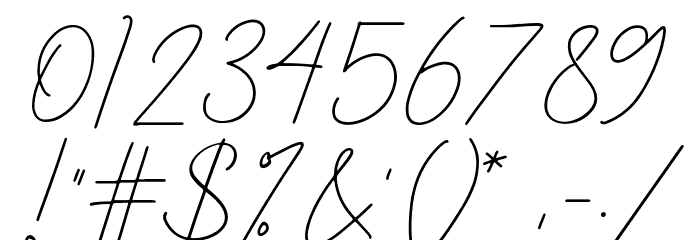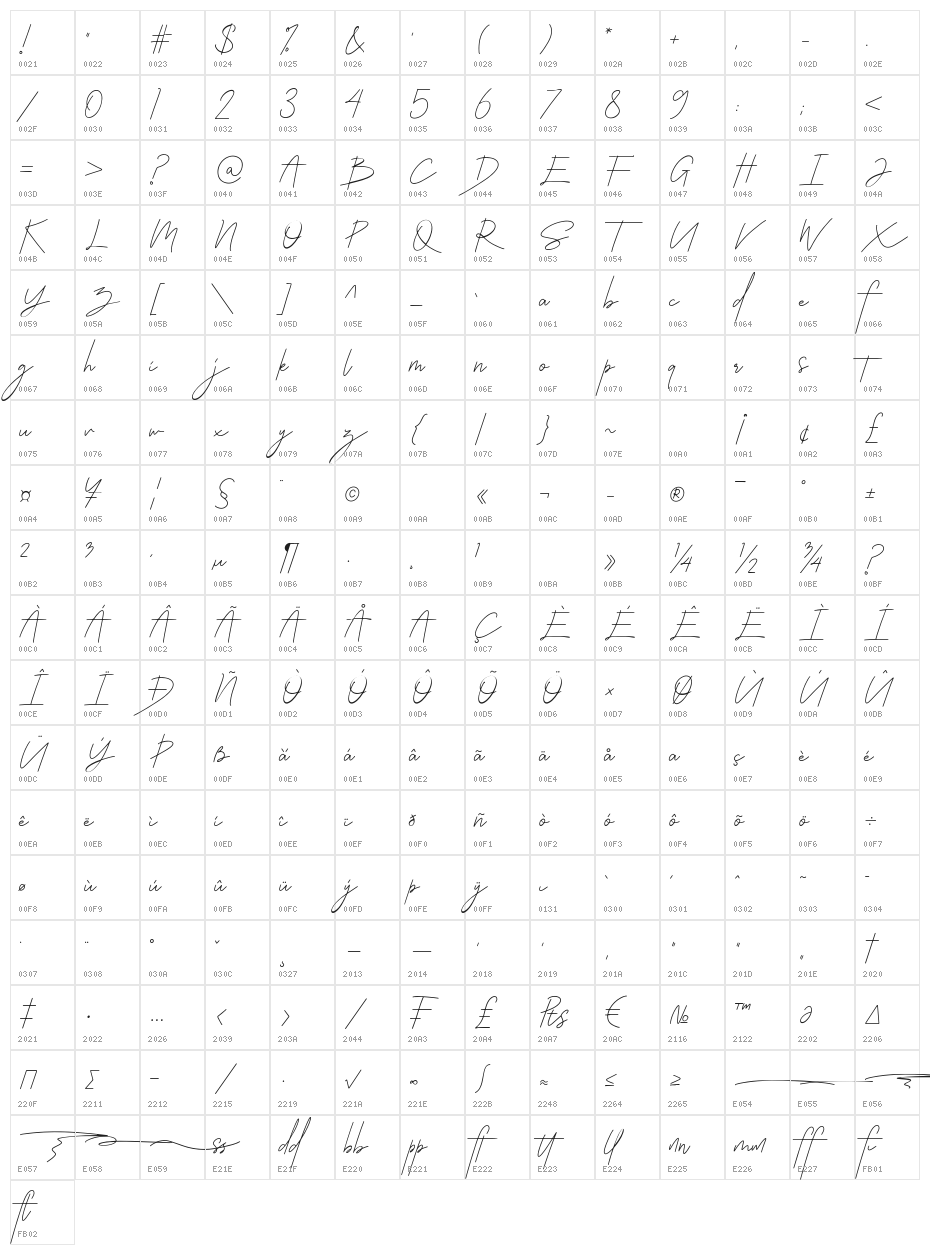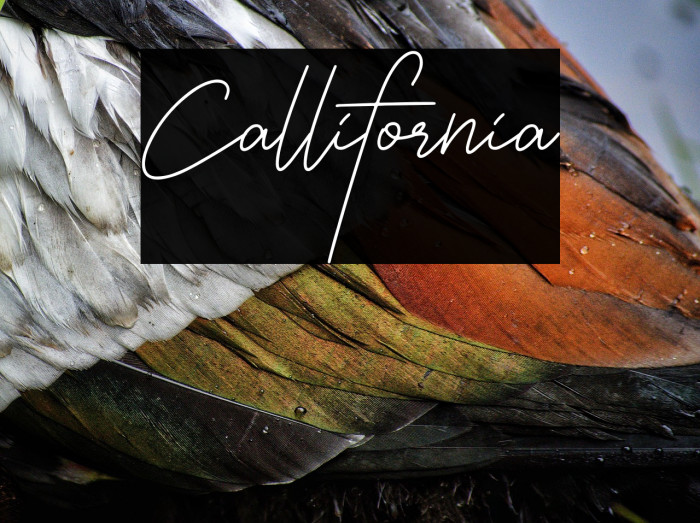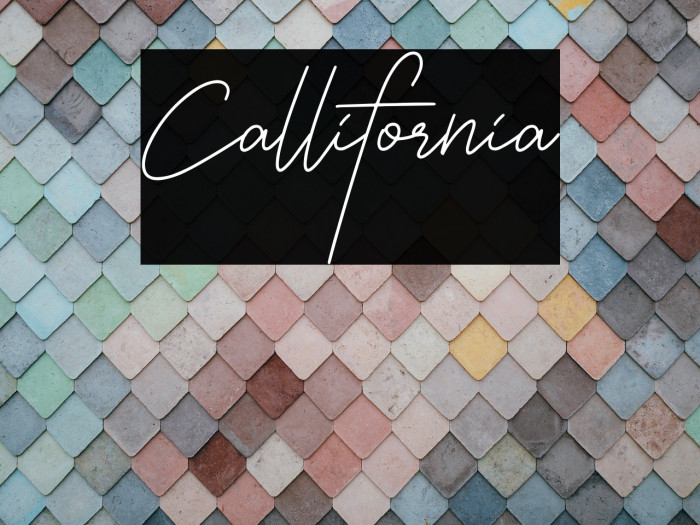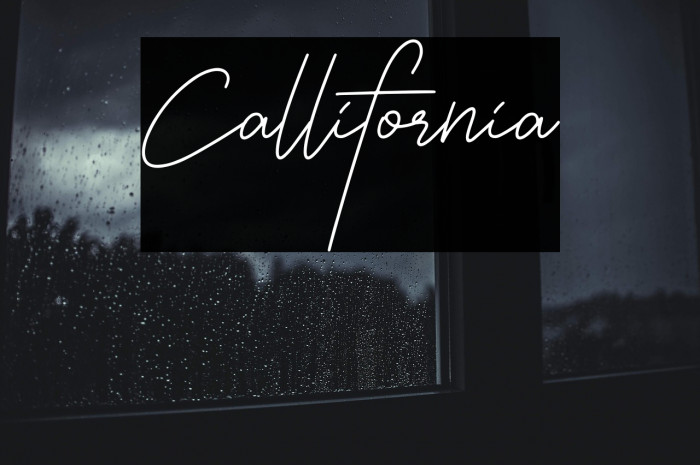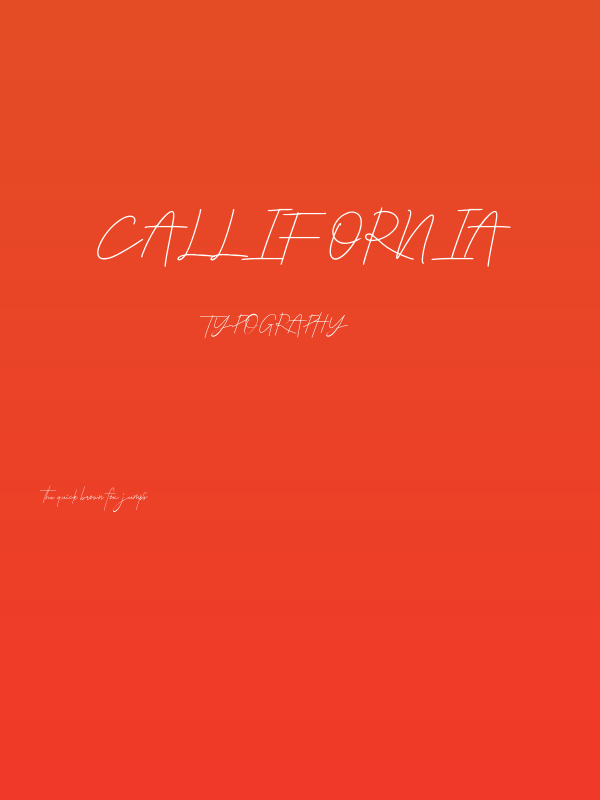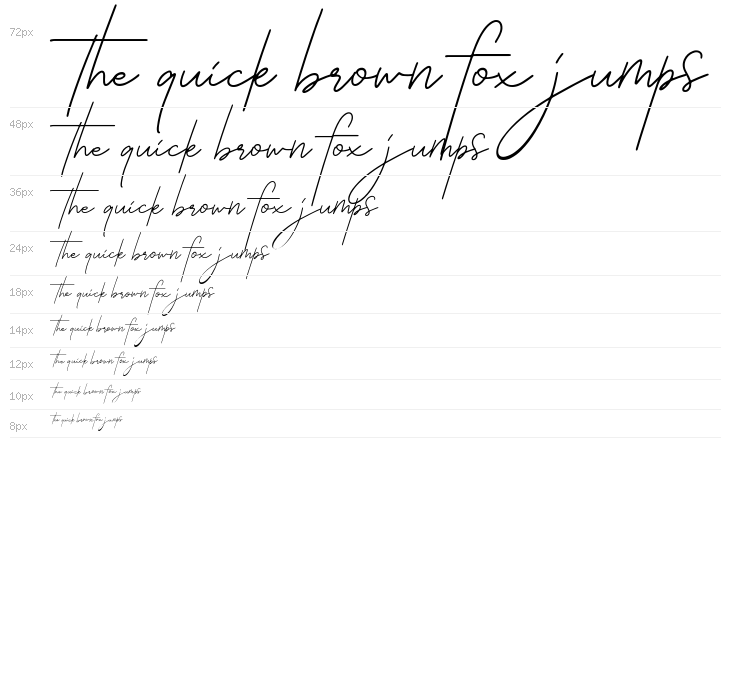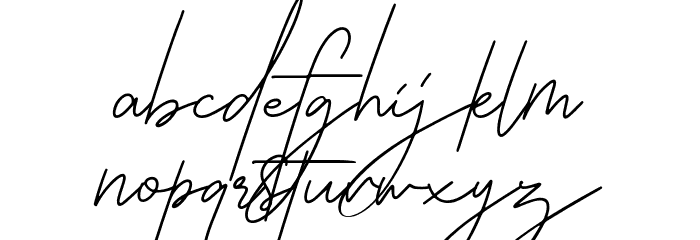
Callifornia Font
Callifornia Description
This font exudes a casual yet elegant handwritten style, characterized by its flowing, cursive script. The letters are connected with smooth, sweeping strokes that give it a natural and personal touch. The uppercase letters maintain a consistent height, while the lowercase letters vary slightly, adding to its dynamic appearance. The numerals are clear and legible, maintaining the same fluidity as the alphabet. Special characters are seamlessly integrated, ensuring versatility in various contexts. This font is perfect for projects that require a personal, human touch, such as invitations, greeting cards, or branding materials.
| Overall Style | Elegant, Casual |
| Proposed Projects | Ideal for wedding invitations, personal branding, greeting cards, and artistic projects. |